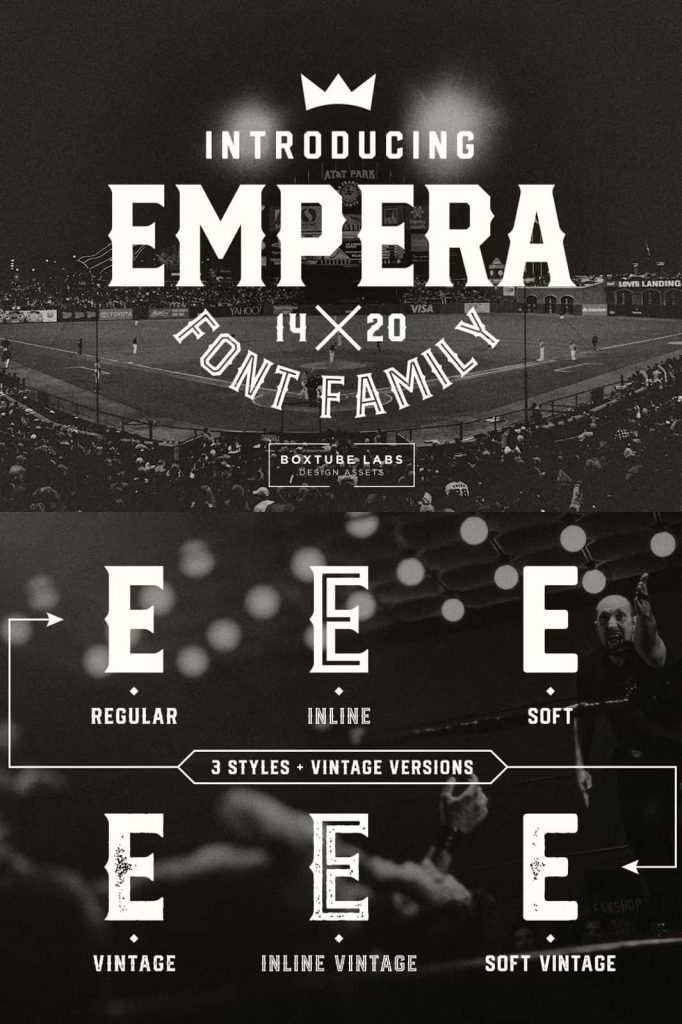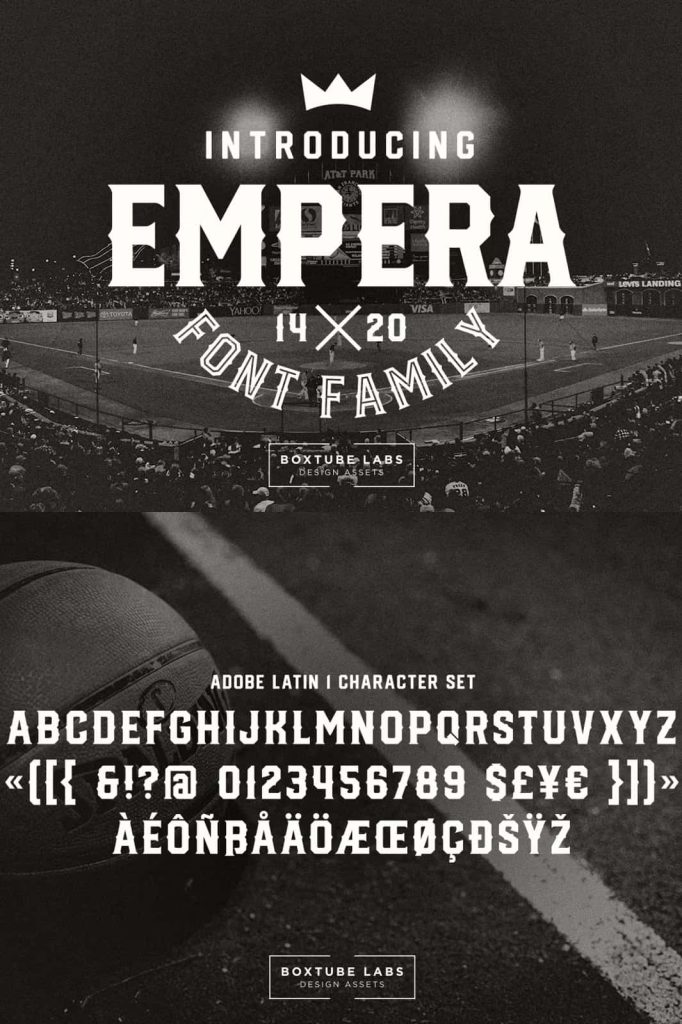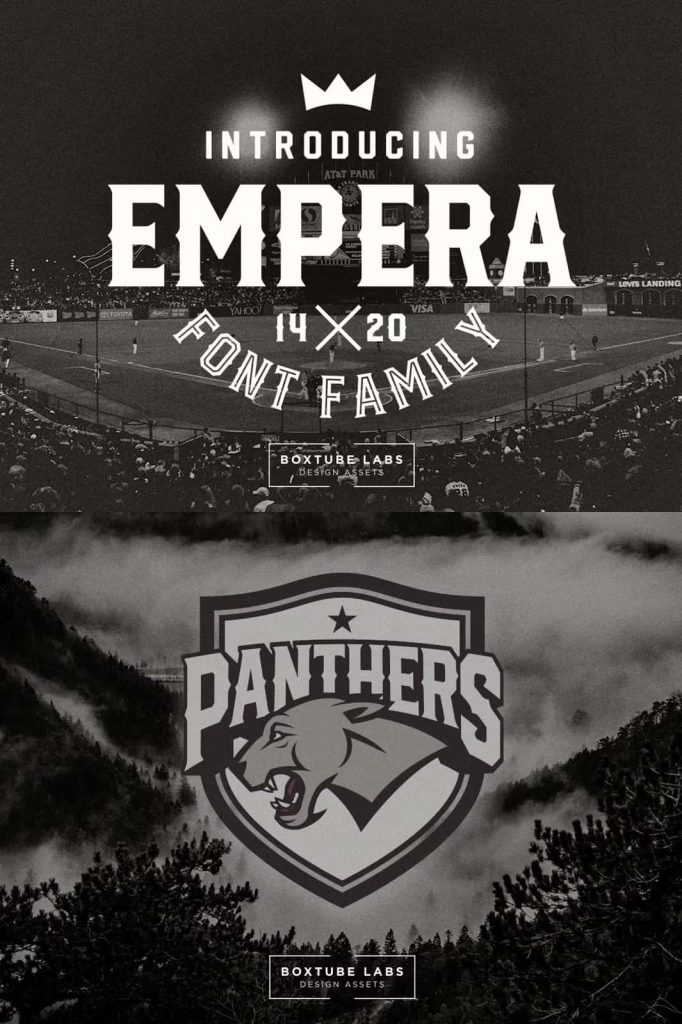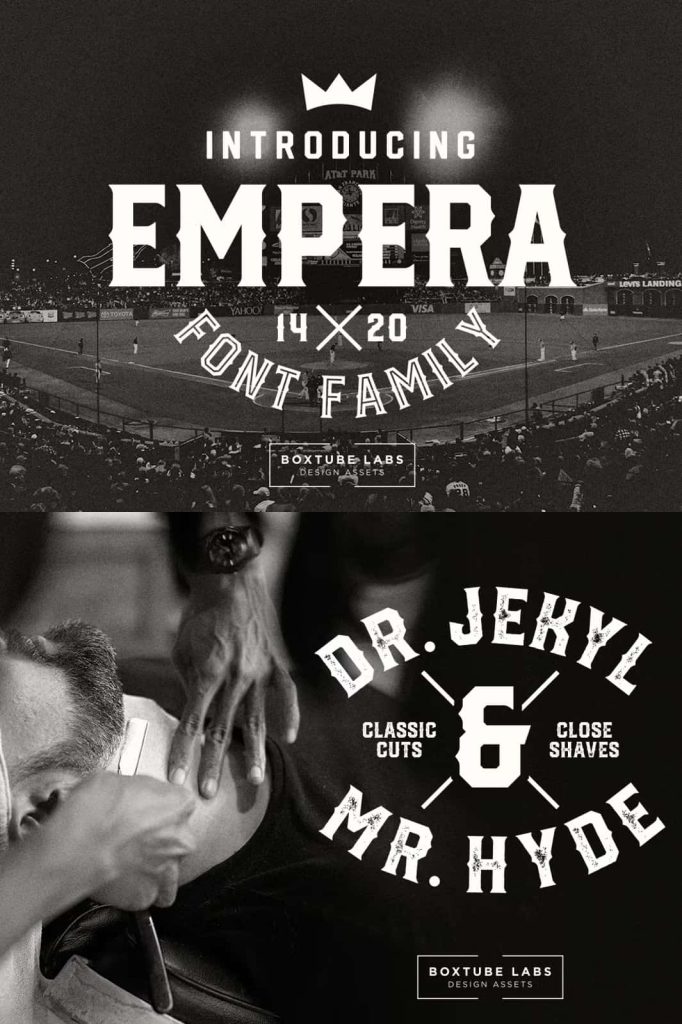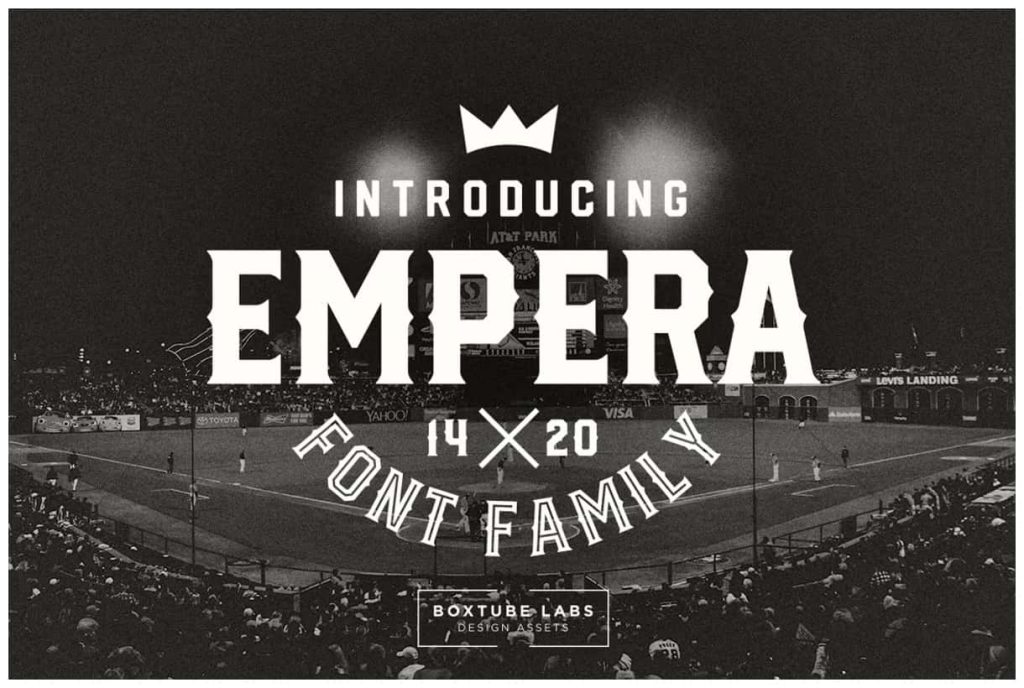
Empera – Display FontleastedApril 1, 2025Fonts Empera is a fearless athletic font family with six creative styles for added flexibility and variation. Download